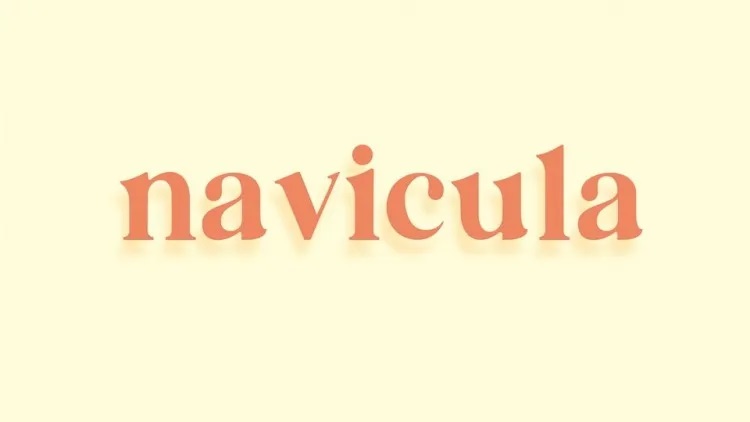
Navicula Font
Introducing Navicula Serif Font, modern and simple serif font to make your design feel more personalized. Slight but addition; this typeface can be included to look graceful on any design. Witness how classic and vintage curves are combined from several shapes on the type set. Support multilingual font!
Navicula Serif Font